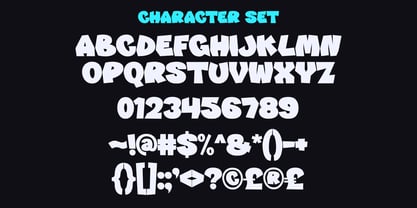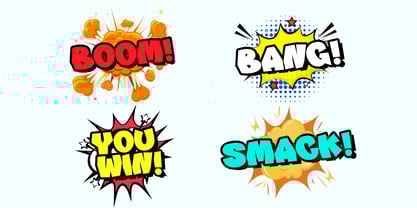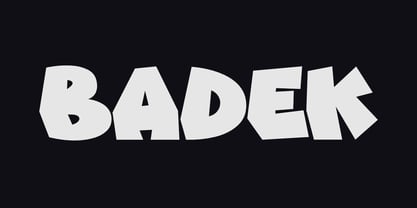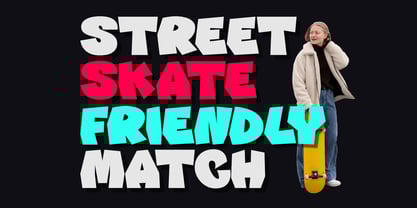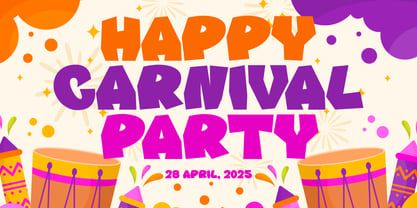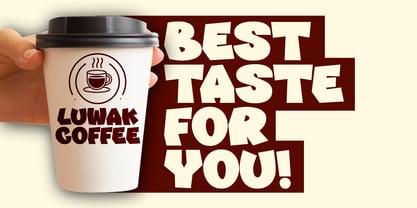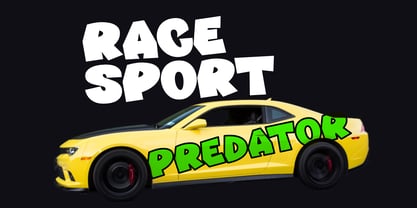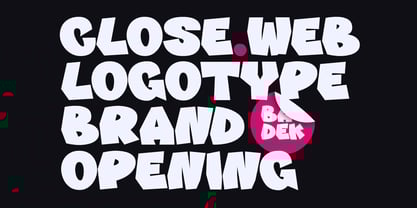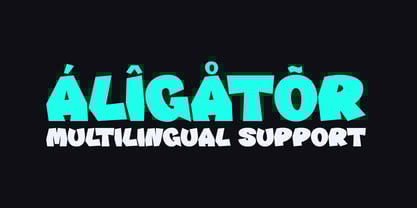
Badek
The Badek Font Family was designed by Saiful Anwar and published by Sealoung. Badek contains 1 styles. More about this family
Badek Bold Display Typeface is crafted to make a bold and powerful impression in any design project. With its robust and striking design, Badek offers a dynamic and attention-grabbing character, perfect for meeting various contemporary design needs.
Key Features:
• Bold and Striking Design: A thick and sturdy style, perfect for headlines, posters, logos, and any element that needs to stand out.
• Unique Character: Each letter is meticulously designed, delivering a strong yet aesthetically pleasing impression.
• Versatile Application: Ideal for a wide range of design projects, including branding, advertising, social media, and more.
• Full Character Set: Includes uppercase letters, numbers, and punctuation to support versatile design possibilities.
Perfect for:
• Creating captivating headlines for articles and blogs
• Designing striking event posters
• Building a strong, memorable brand identity
• Crafting effective and appealing advertising materials
Make every design project stand out with Badek Bold Display Typeface, a font that seamlessly blends strength and elegance in every character.